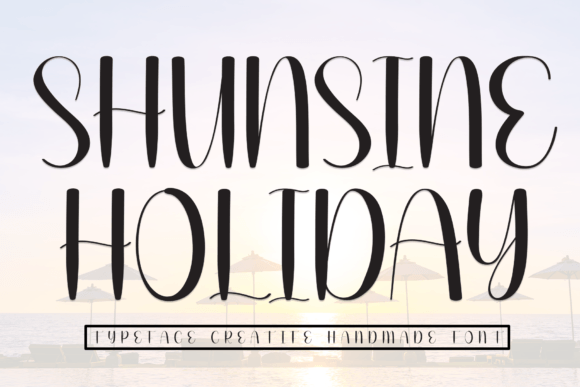
Step into a world of love and laughter with Sunshine Holiday, a script font handcrafted to bring joy to your designs. Its playful strokes resemble handwritten notes, adding a personal touch to every word you type. Perfect for creating wedding invitations and hashtags, it's the perfect font to capture the excitement and happiness of your special day. With Sunshine Holiday, your words will dance off the page, telling the tale of your love in a way that's both elegant and whimsical.
Beyond its wedding-ready charm, Sunshine Holiday is a versatile font that's ready for any creative project. Its friendly style will brighten up posters, flyers, and social media posts, while its legibility ensures that your messages are always crystal clear. And with its extended language support, Sunshine Holiday can spread happiness across borders, making it a truly global font.
Sunshine Holiday is more than just a font; it's an experience. It's the perfect way to add a touch of magic to your designs, making them stand out from the crowd. So let Sunshine Holiday be your creative companion, and embark on a journey of joy and wonder with every word you write.